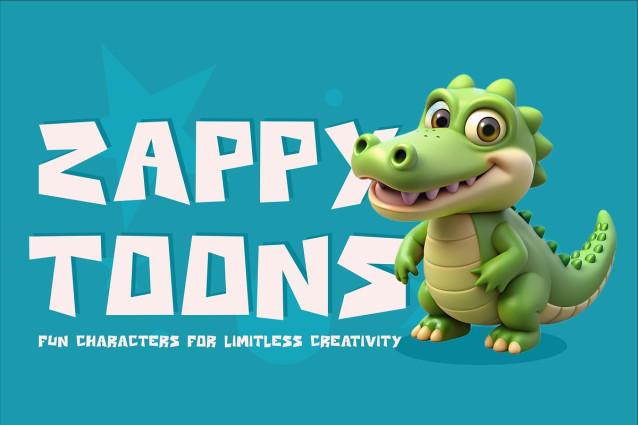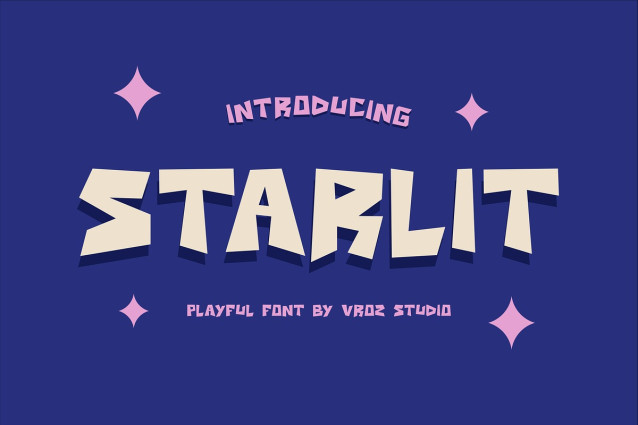
Starlit Playful Font
Starlit Playful Font is a cheerful and energetic display font bursting with personality! With bold, bouncy letters and a cartoon-inspired vibe, this font is perfect for adding joy, playfulness, and a sprinkle of mischief to any creative project.
From silly giggles to bright adventures, Starlit brings a happy twist to every word. Its chunky shapes and lively curves are made for kids’ designs, comics, games, YouTube thumbnails, posters, birthday invites, and anything that needs to shine with fun.
Whether you’re designing cute packaging, playful logos, or colorful digital content, Starlit adds instant charm and character.